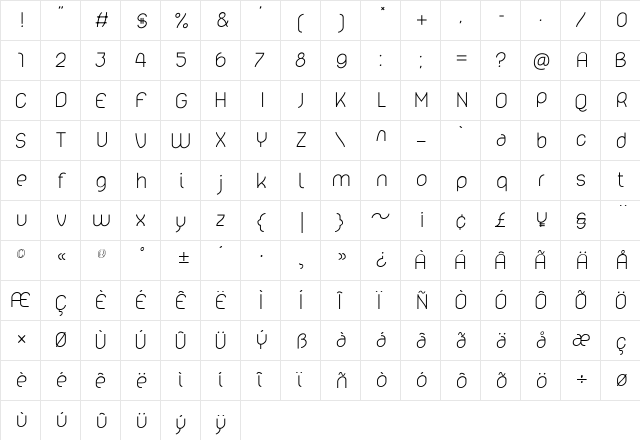
lelim 300 Font Preview
lelim 300
| Foundry | Stefan Motzigemba |
| Designer | Stefan Motzigemba |
Design Context for lelim Typeface
lelim takes a measured approach to typography — its balanced proportions and neutral character make it a reliable workhorse for both digital and print work.